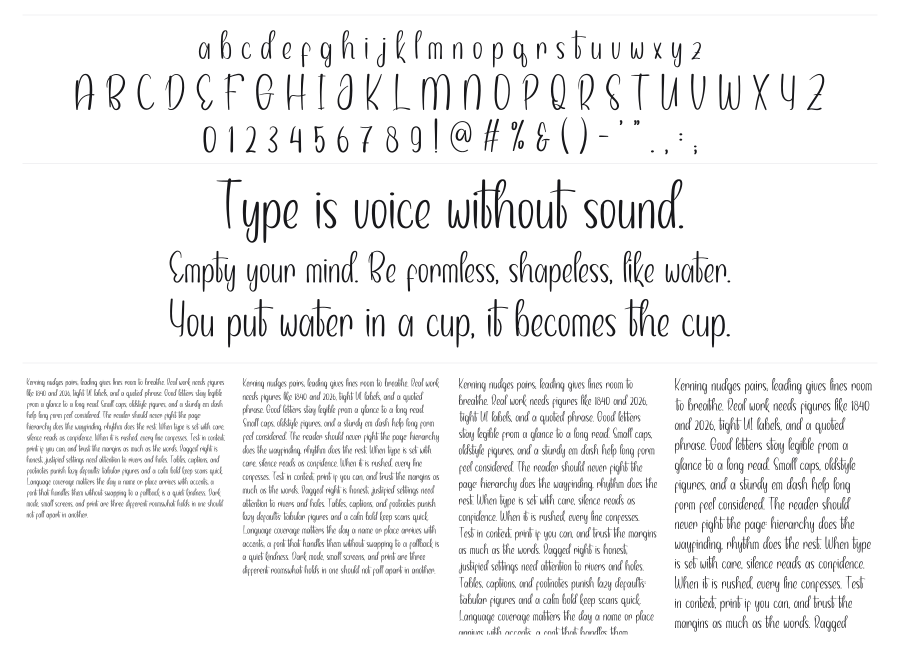
Amanda Handmade
Amanda Handmade is a casual upright handwritten script with tall looping ascenders and a naturally uneven, pen-drawn rhythm. The thin strokes and rounded forms keep it light and approachable without tipping into overly sweet territory. It works well for branding, packaging, and anywhere a handmade human touch is needed.